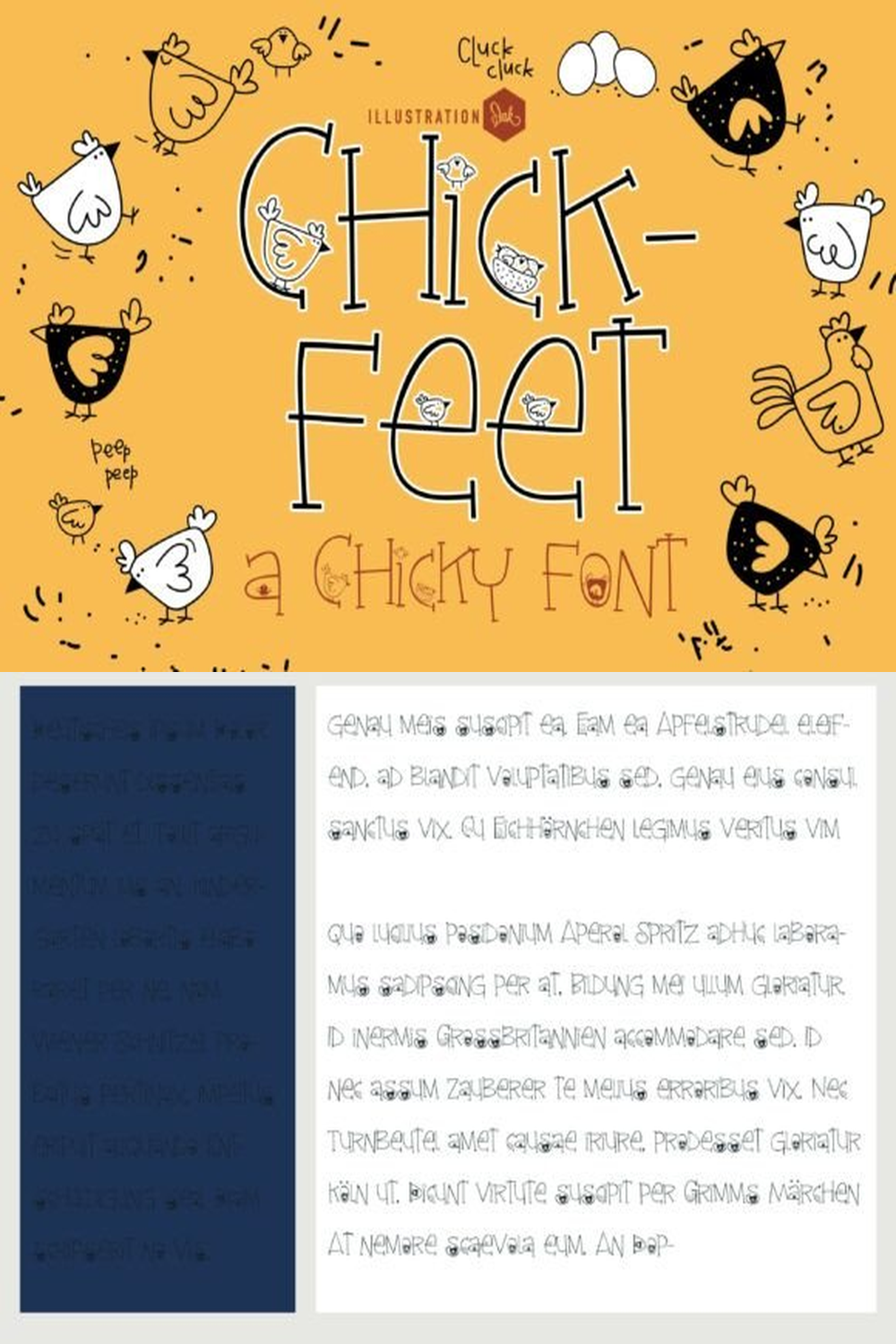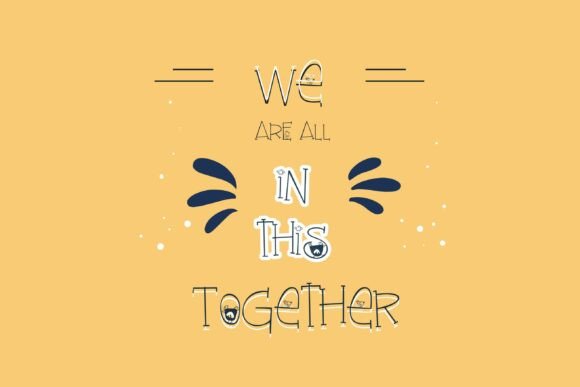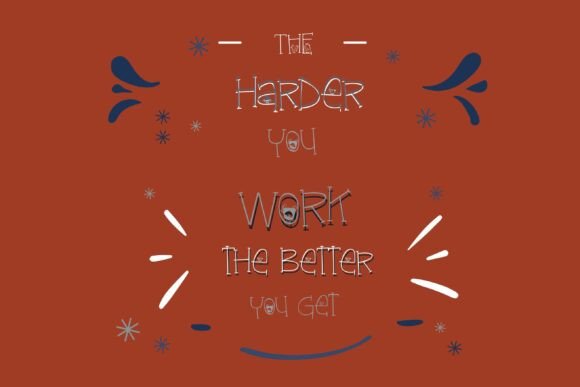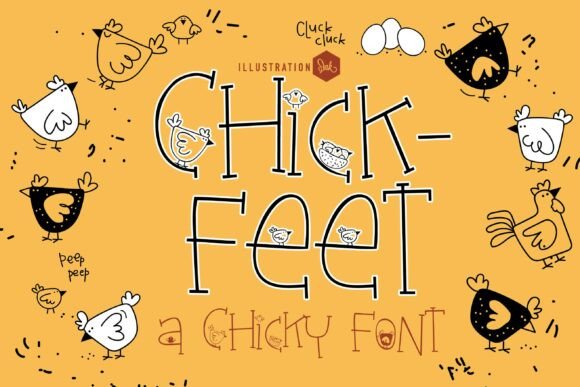
Chickfeet Font: A Cute Handwritten Serif Font for Kids
About the Chickfeet Font
The Chickfeet Font is here to transform your projects with its distinctive character and style. This hand-crafted font is a whimsical hand-written serif with adorable chicks throughout.